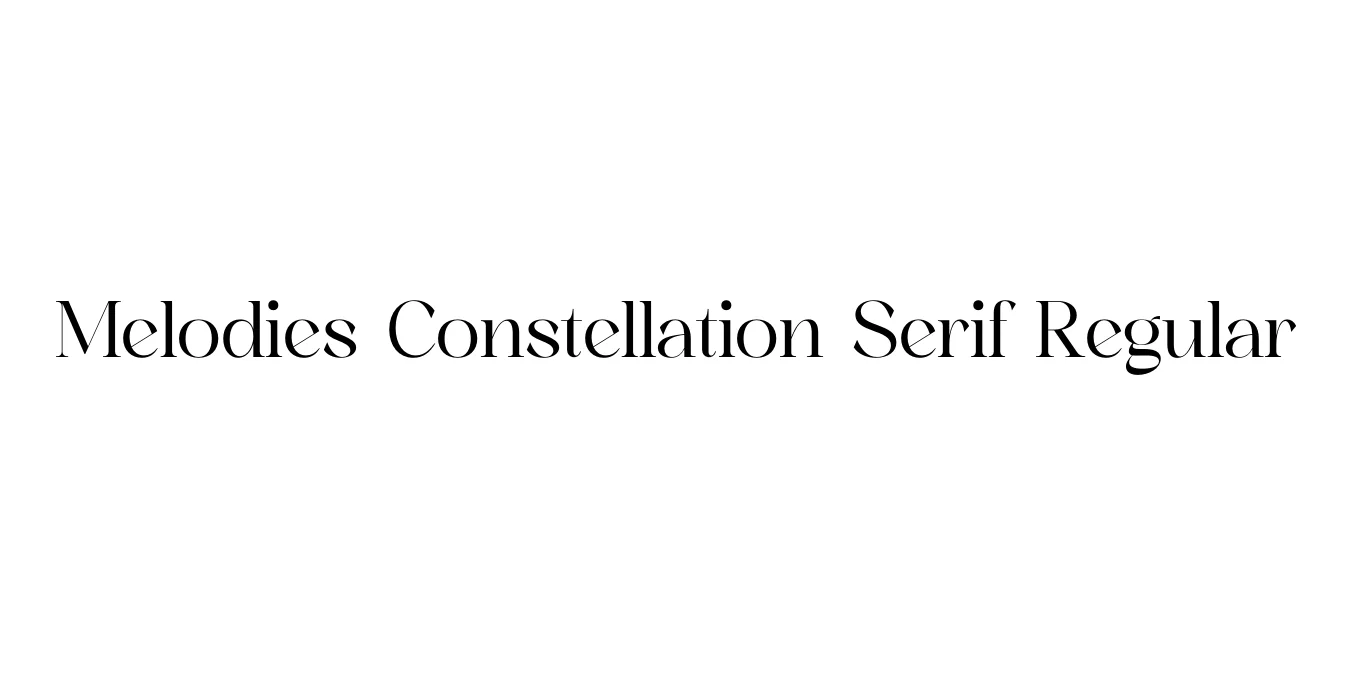
Melodies Constellation Serif Regular
Designed by Letterhend Studio
Melodies Constellation Serif Regular is a sophisticated display typeface that blends classical elegance with a celestial aesthetic. Designed to evoke a sense of timeless luxury, it features sharp serifs and refined proportions that make it ideal for high-end branding projects. The font’s unique character lies in its delicate balance between traditional letterforms and contemporary stylistic flourishes, ensuring a clean yet impactful visual presence in any design composition.
Originally released to cater to the growing demand for editorial-style typography, this font excels in both print and digital media. Whether used for magazine headlines or luxury packaging, Melodies Constellation provides a rhythmic flow that guides the eye across the page. Its versatility is further enhanced by a comprehensive set of glyphs and ligatures, making it a reliable choice for designers seeking a font that communicates sophistication, artistic clarity, and a touch of modern romance.
Melodies Constellation Serif Regular Best Uses
Perfect for high-end magazine layouts, headers, and pull quotes.
Ideal for luxury logos, fashion brand identities, and cosmetics packaging.
Great for creating sophisticated aesthetic quotes and Instagram stories.
Adds a touch of elegance to wedding stationery and formal gala invites.